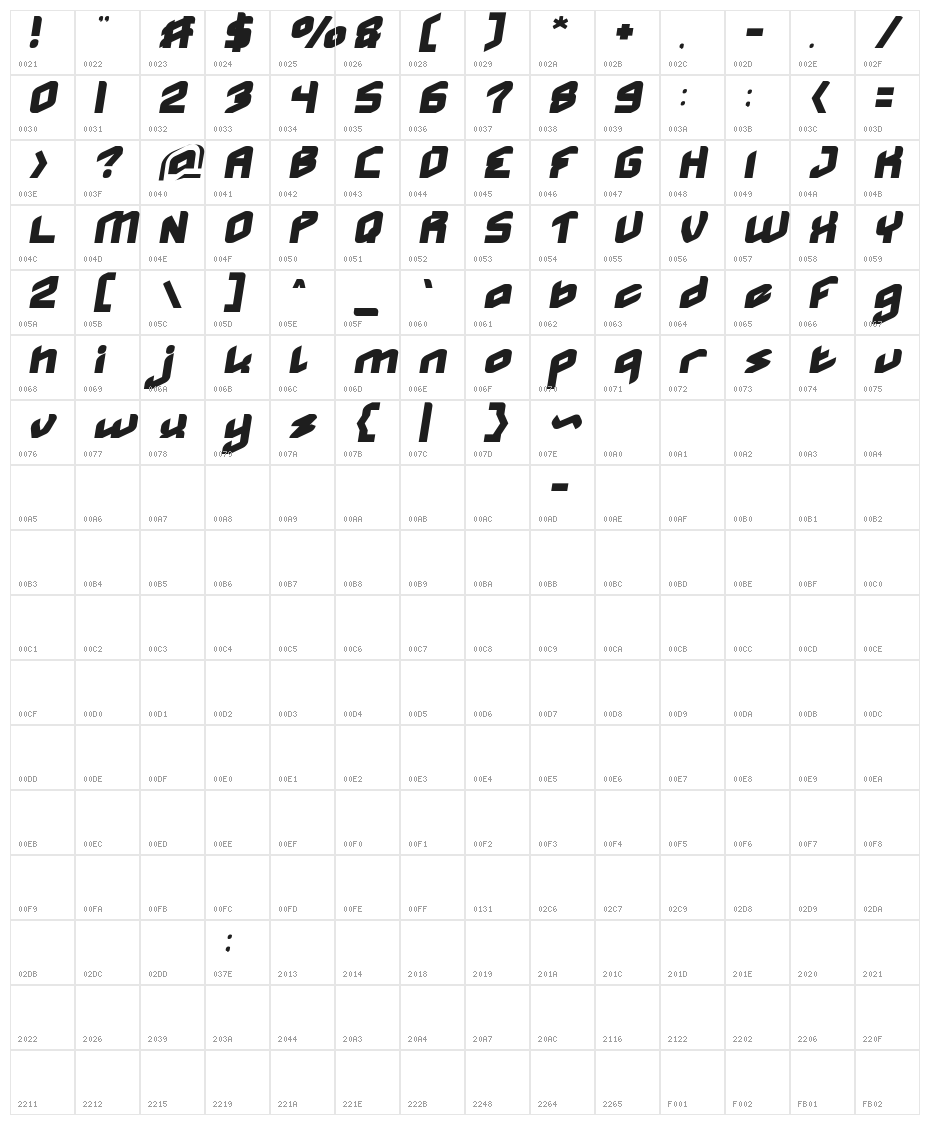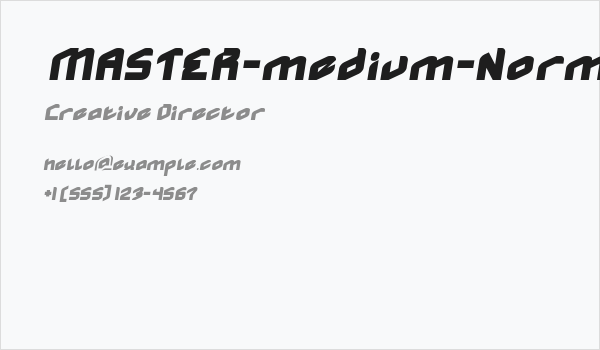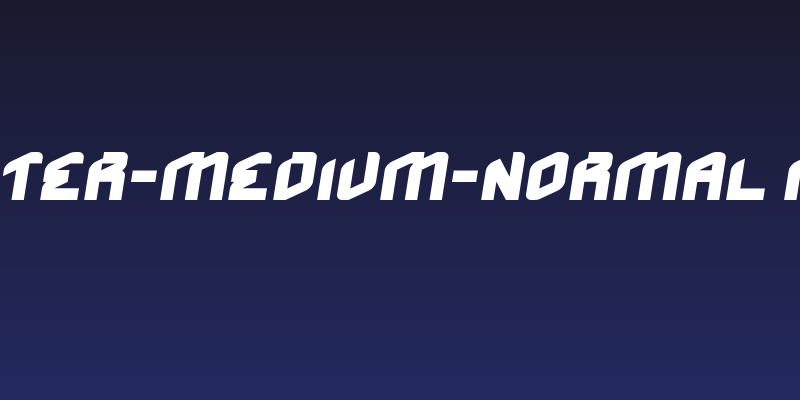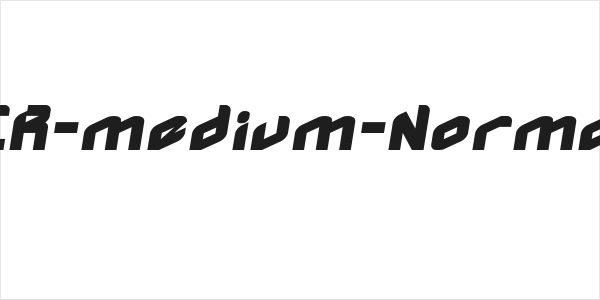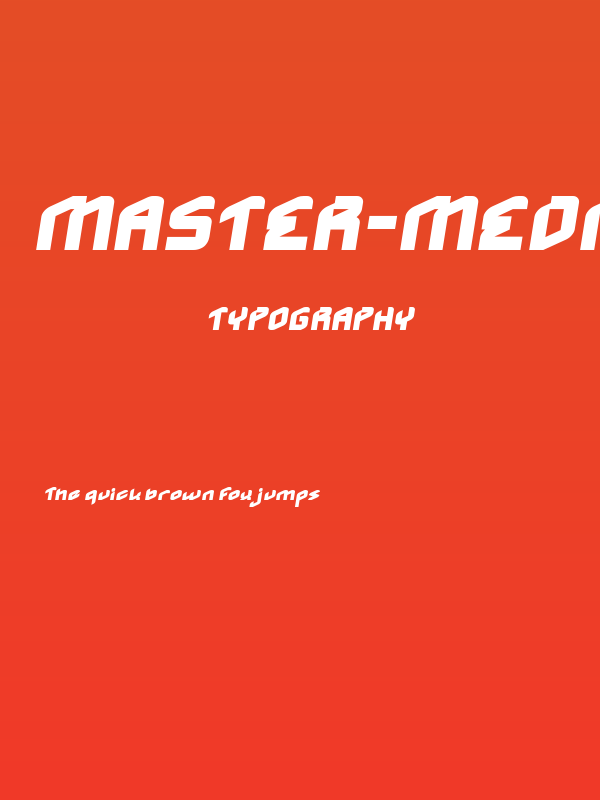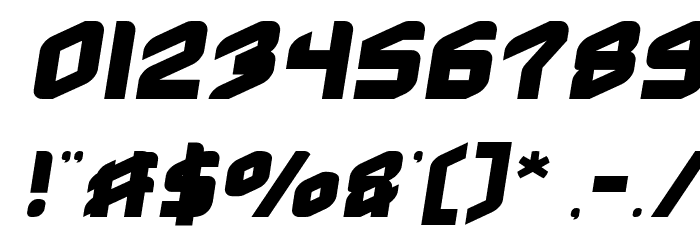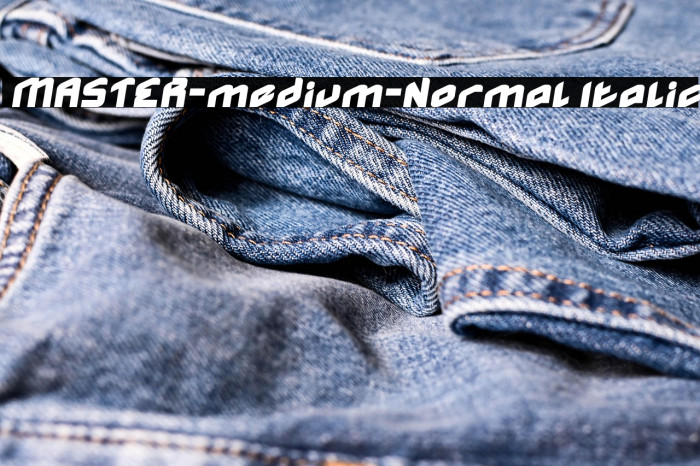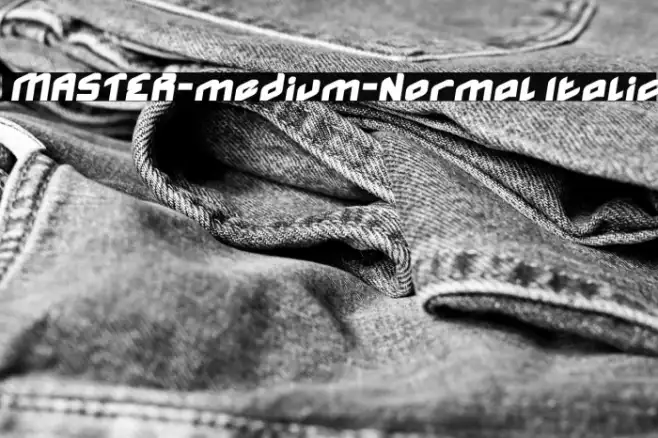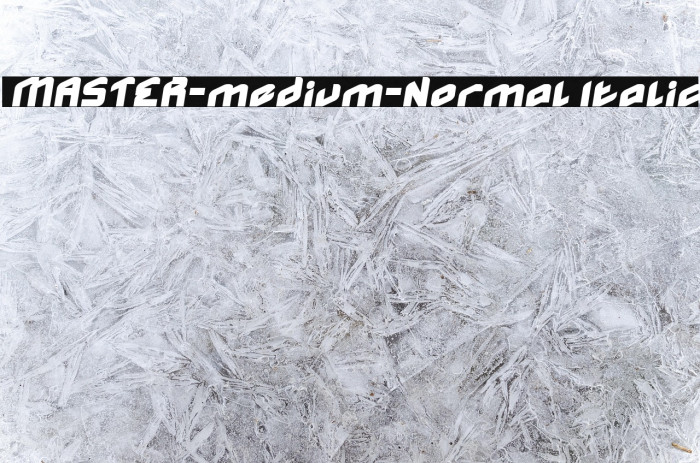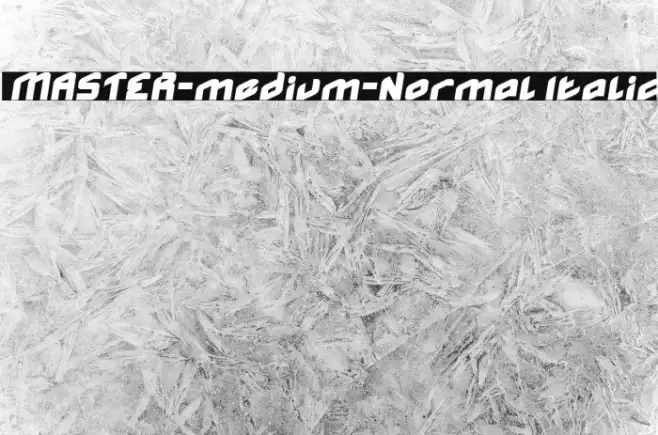
MASTER-medium-Normal Italic Font
MASTER-medium-Normal Italic Description
This font features a bold, italicized style with a modern and dynamic appearance. The characters are slightly slanted, giving a sense of movement and energy. The strokes are thick and consistent, providing a strong visual impact. The uppercase and lowercase letters maintain a cohesive design, with angular and geometric elements that create a futuristic feel. The numbers and special characters are designed to match the overall aesthetic, ensuring uniformity across all glyphs. This font is ideal for projects that require a bold statement or a contemporary look.
| Proposed Projects | Ideal for branding, sports team logos, posters, and dynamic advertising materials. |